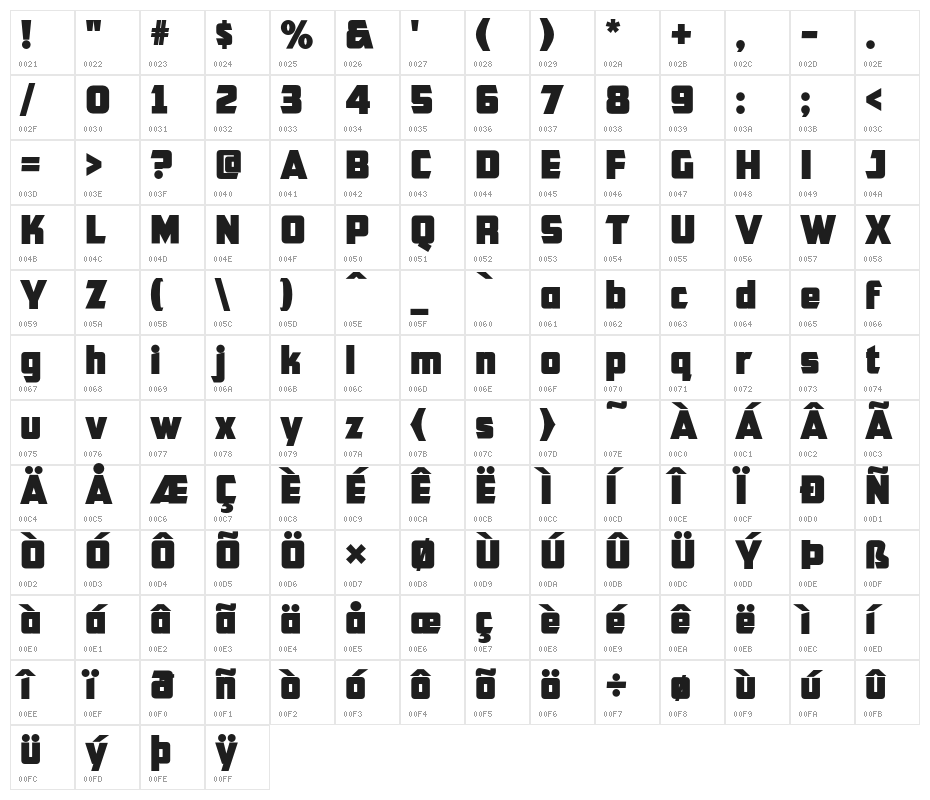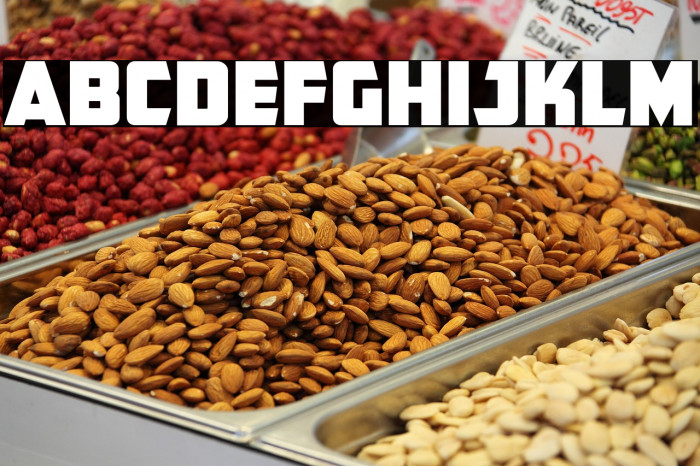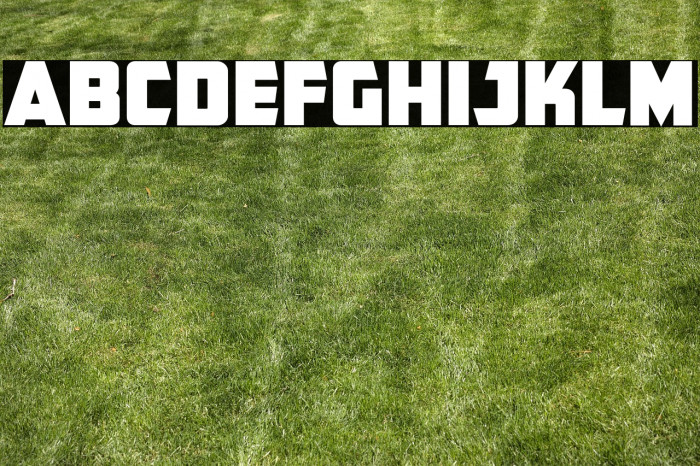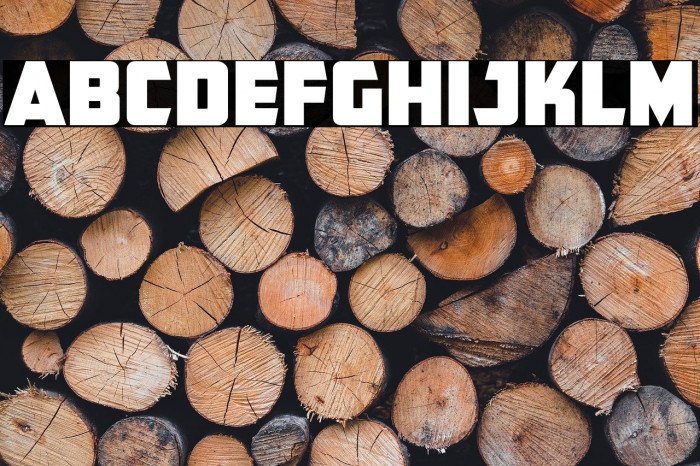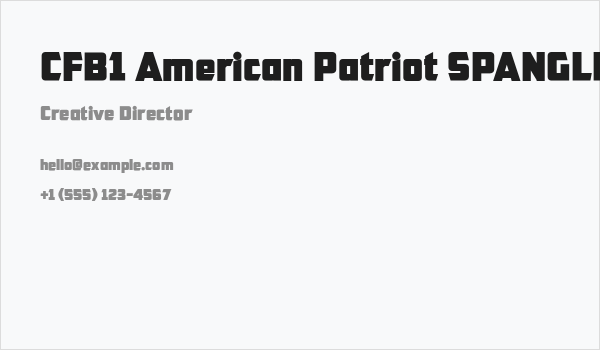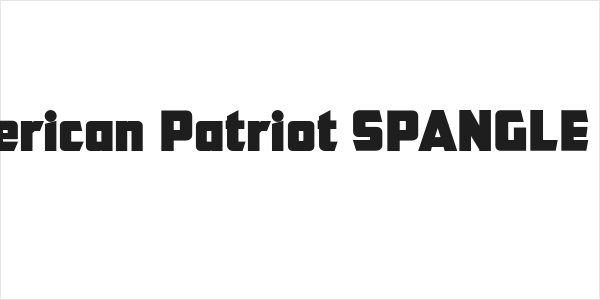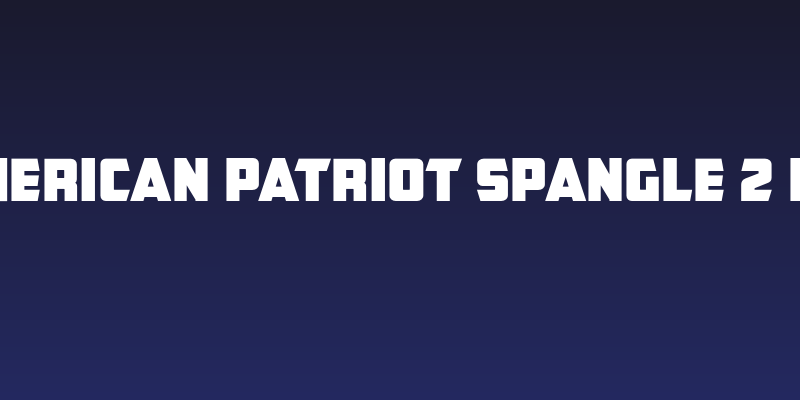
CFB1 American Patriot SPANGLE 2 Normal Font
CFB1 American Patriot SPANGLE 2 Normal Description
This bold and impactful font features strong, geometric shapes with a robust presence. The uppercase letters are particularly striking, with a blocky and angular design that conveys strength and stability. The lowercase letters maintain a similar style, ensuring consistency throughout. Numbers and special characters are equally bold, making them stand out in any design. The font's thick strokes and uniform weight give it a commanding appearance, suitable for making a statement.
| Proposed Projects | Ideal for posters, headlines, branding, and any project requiring a bold, impactful typeface. |